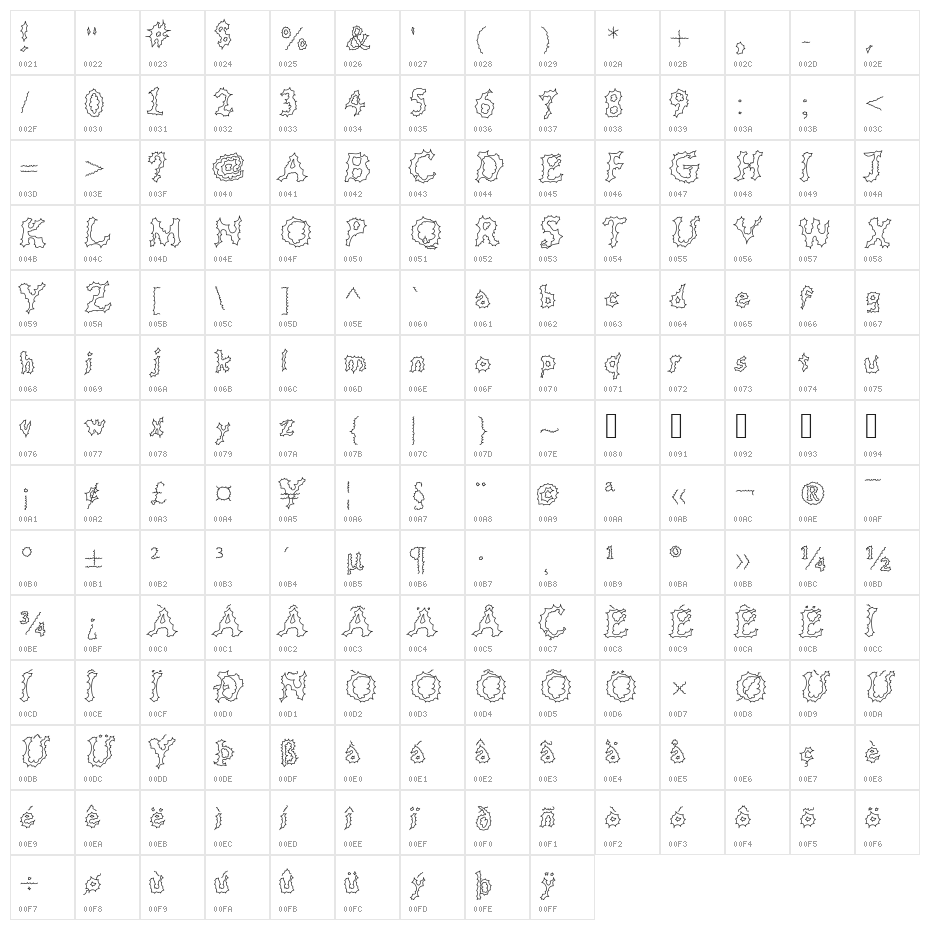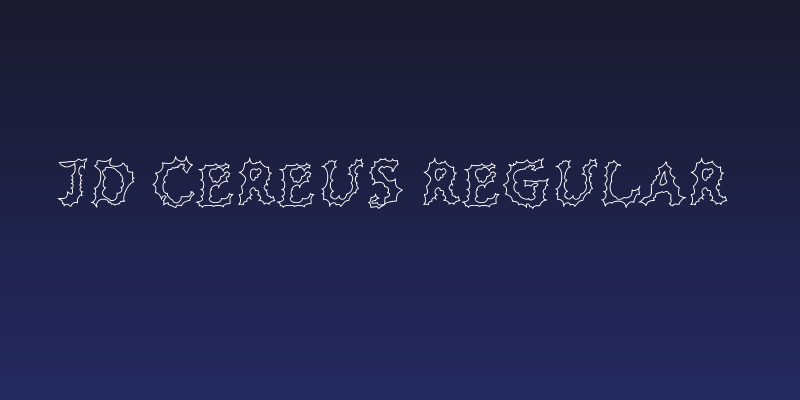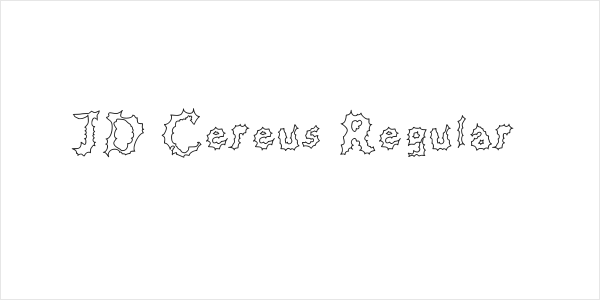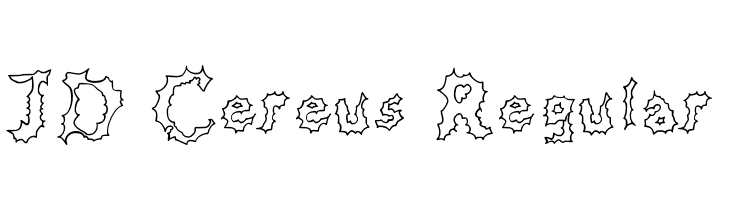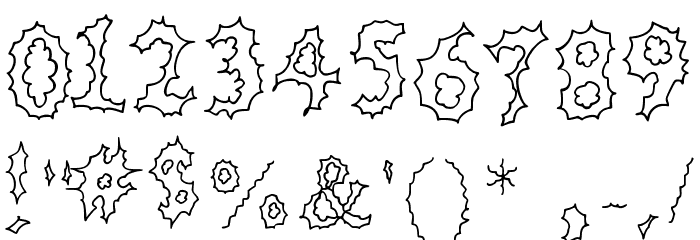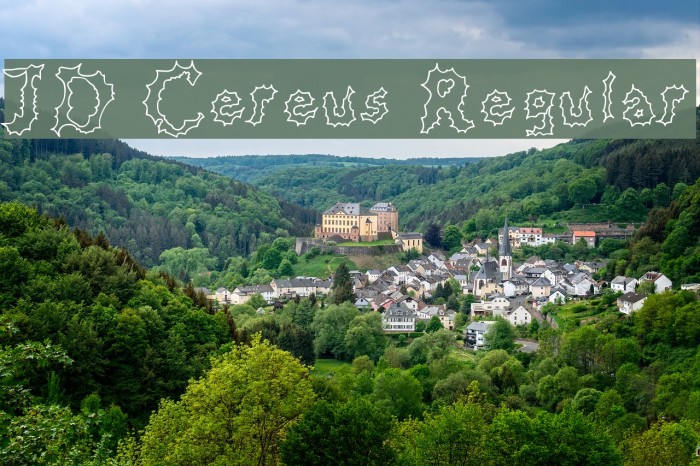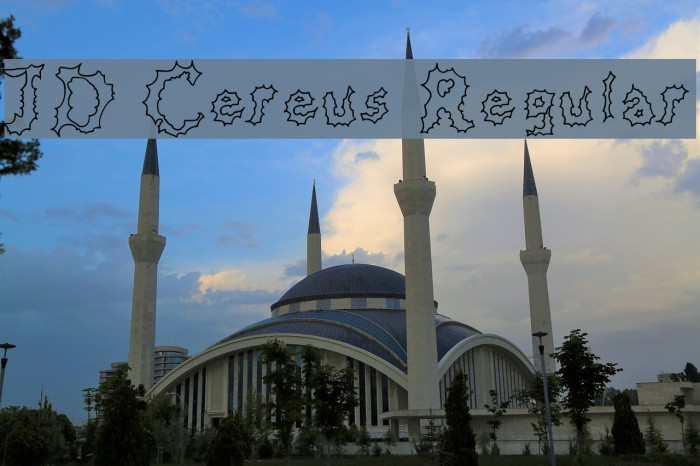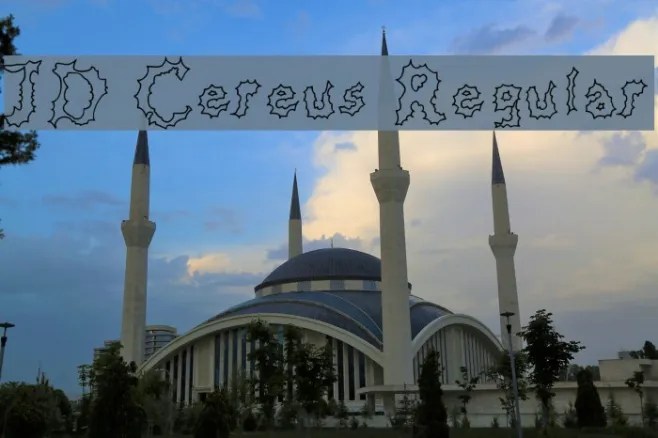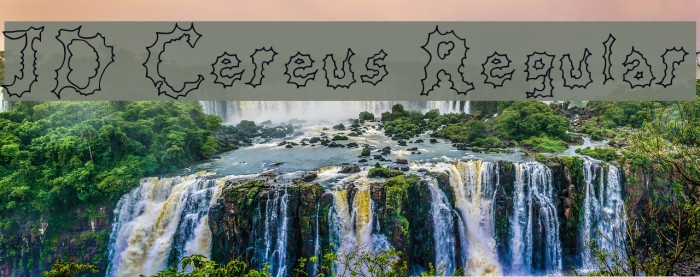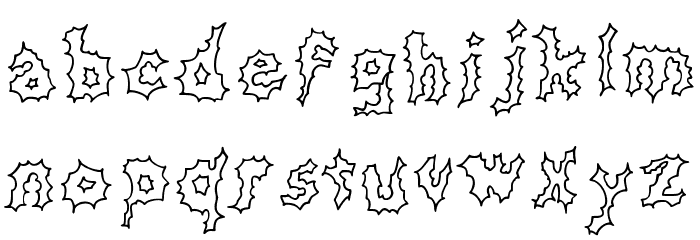
JD Cereus Regular Font
JD Cereus Regular Description
This font features a unique, jagged outline that resembles thorny or spiky edges, giving it a distinct and edgy appearance. The characters are bold and irregular, with an organic, hand-drawn feel. Each letter and number has a playful yet slightly chaotic style, making it stand out in any design. The uppercase and lowercase letters maintain this consistent thorny theme, while the numbers and special characters follow suit, ensuring a cohesive look across all glyphs. This font is perfect for projects that require a bold statement or a touch of whimsy.